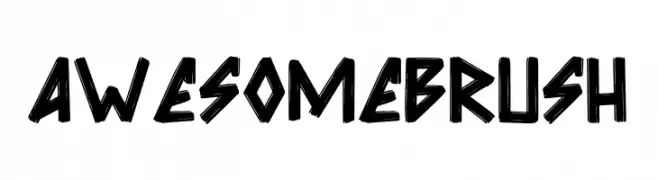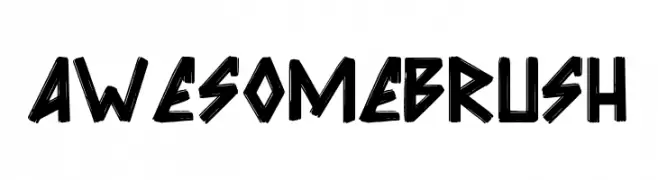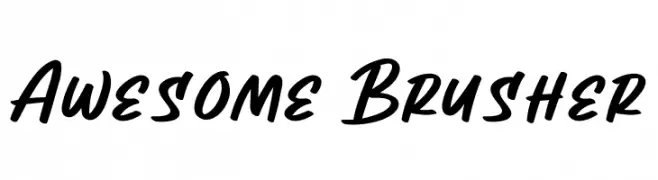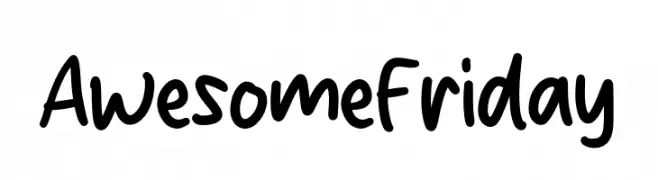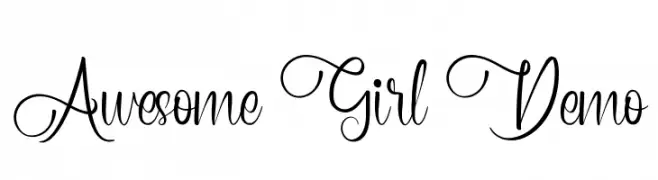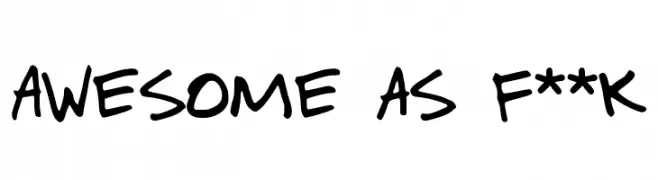
A bold, art deco-inspired font with flowing curves and decorative elements.
A bold serif font with sharp serifs and a dynamic presence.
A classic serif font with sharp, angular serifs and a modern twist.
A playful and bold font with exaggerated curves and whimsical shapes.
A playful, handwritten font with bold strokes and a casual, dynamic style.
A bold, brush-style font with dynamic strokes and angular edges.
A bold, brush-style font with dynamic, angular strokes.
A bold, brush-style script font with dynamic, fluid strokes.
A playful, casual handwritten font with smooth, rounded edges and consistent strokes.
A playful and elegant script font with decorative flourishes and a handwritten feel.